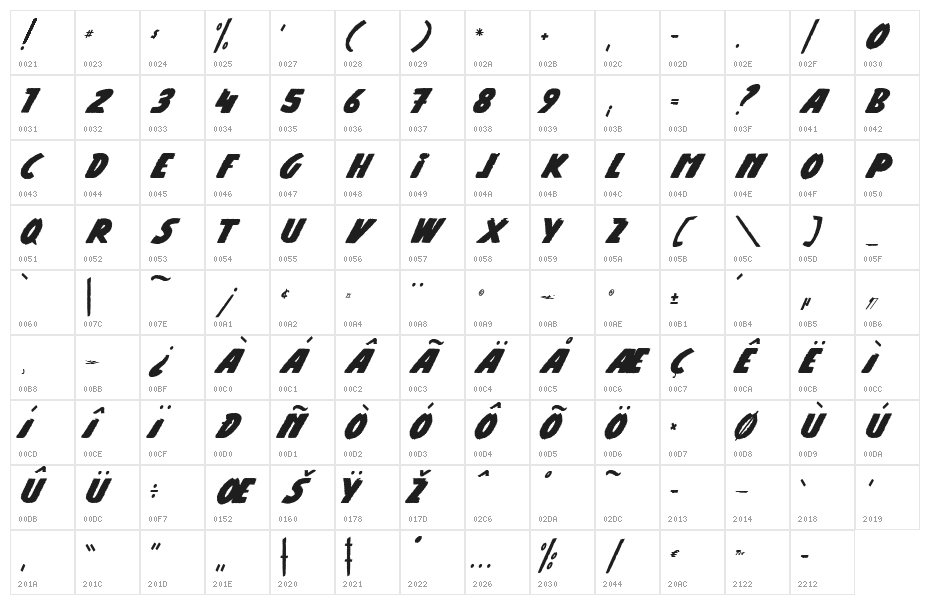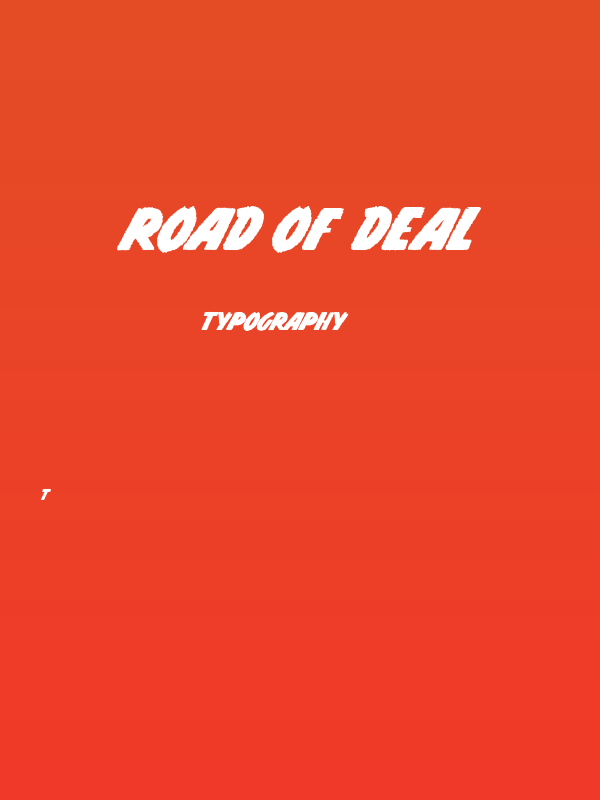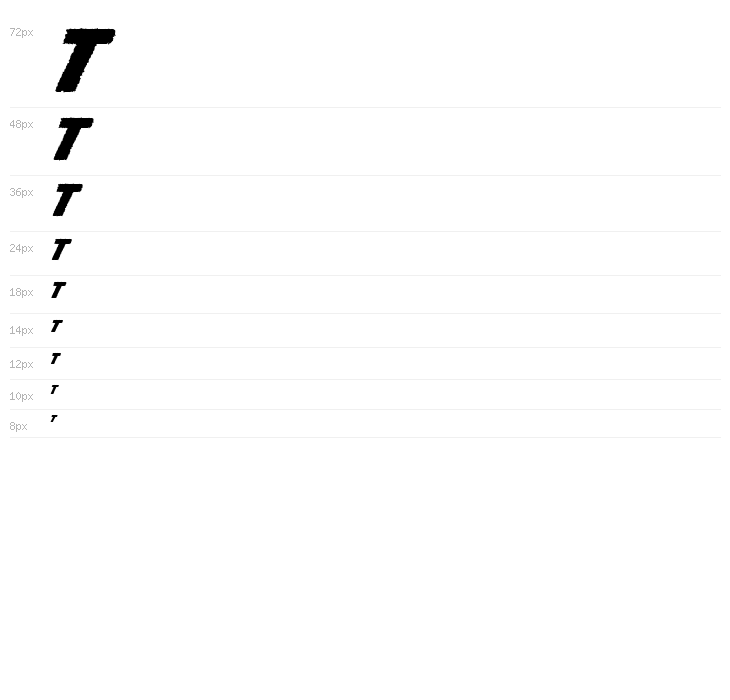
ROAD OF DEAL Font
ROAD OF DEAL Description
This font features a bold and dynamic style with a strong presence. The characters are thick and slightly slanted, giving a sense of movement and energy. The uppercase letters are robust and impactful, while the lowercase letters maintain the same boldness with a slightly more compact form. The numbers are equally bold, ensuring consistency across all characters. Special characters are designed with the same bold strokes, maintaining the overall aesthetic. This font is ideal for projects that require a strong, eye-catching typeface.